Twig Incoming, Published in a Book, Design Sweets and Music Obsessions
It’s been a while. I actually started writing this edition in June… As you can guess, Summer and Fall have been busy for me. The foundry is not dormant, but the rhythm was super slow. You may not all know, but Marmite Defontes is not a full-time activity. Four days a week, I’m working as a designer in a digital agency. The rest of my work time is spent on self-initiated type design projects and a bit of freelance work. And freelance has overtaken the fonts over the last few months. Two branding projects and one illustration gig made working on typefaces very irregular. But there is a couple of news on the glyph front. Enjoy the ride!
Twig is Almost cooked!
The initial release window for the Twig family was around July. So naive of me… 😆 Next window was in October. Second mirage. So, Twig will be released soon-ish. The character set is almost done (let’s say 90%) and after that there is kerning and quality control. So I’m not announcing a release date, but you’ll get for sure a newsletter warning.
Here are some preview images of this variable and 5 weights family.
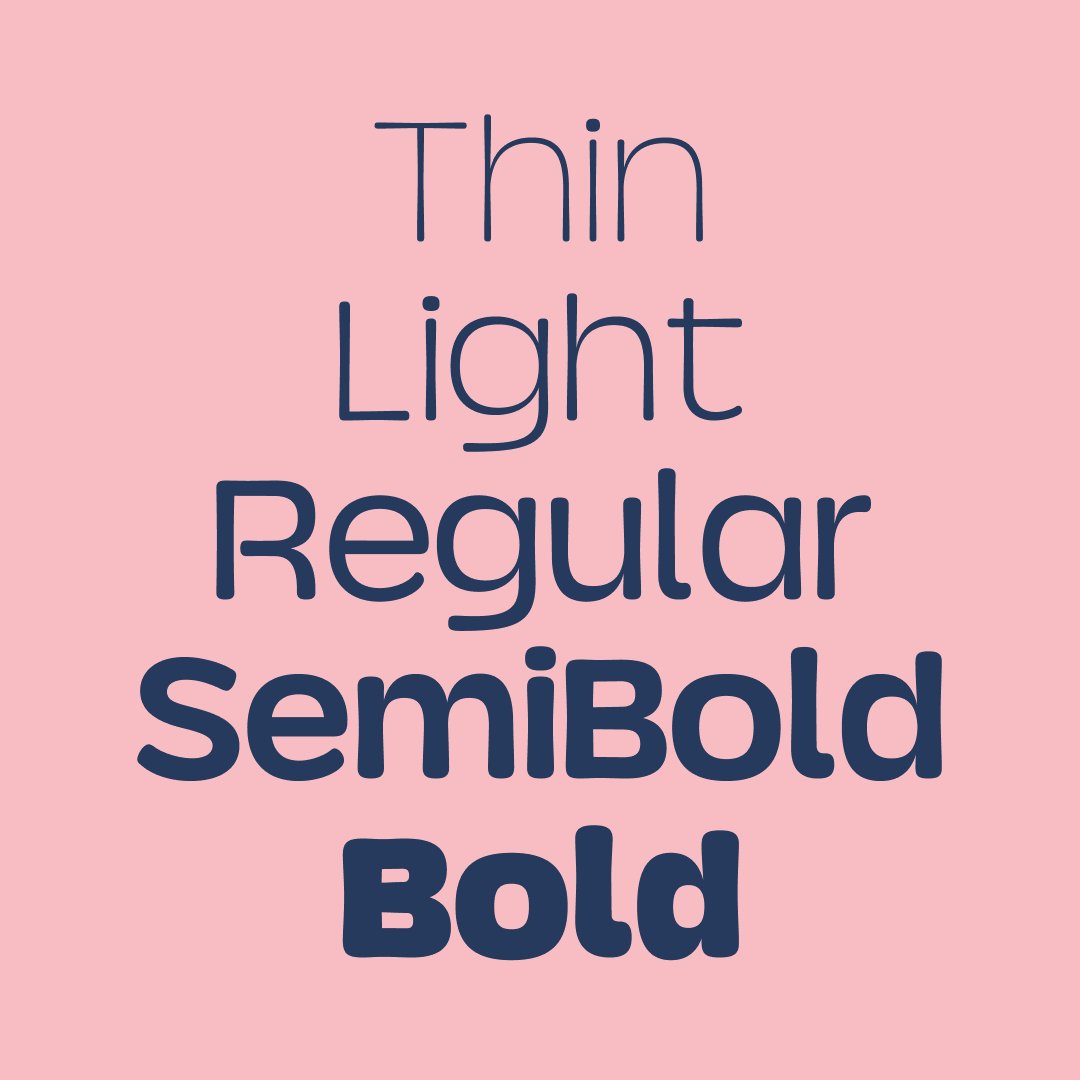
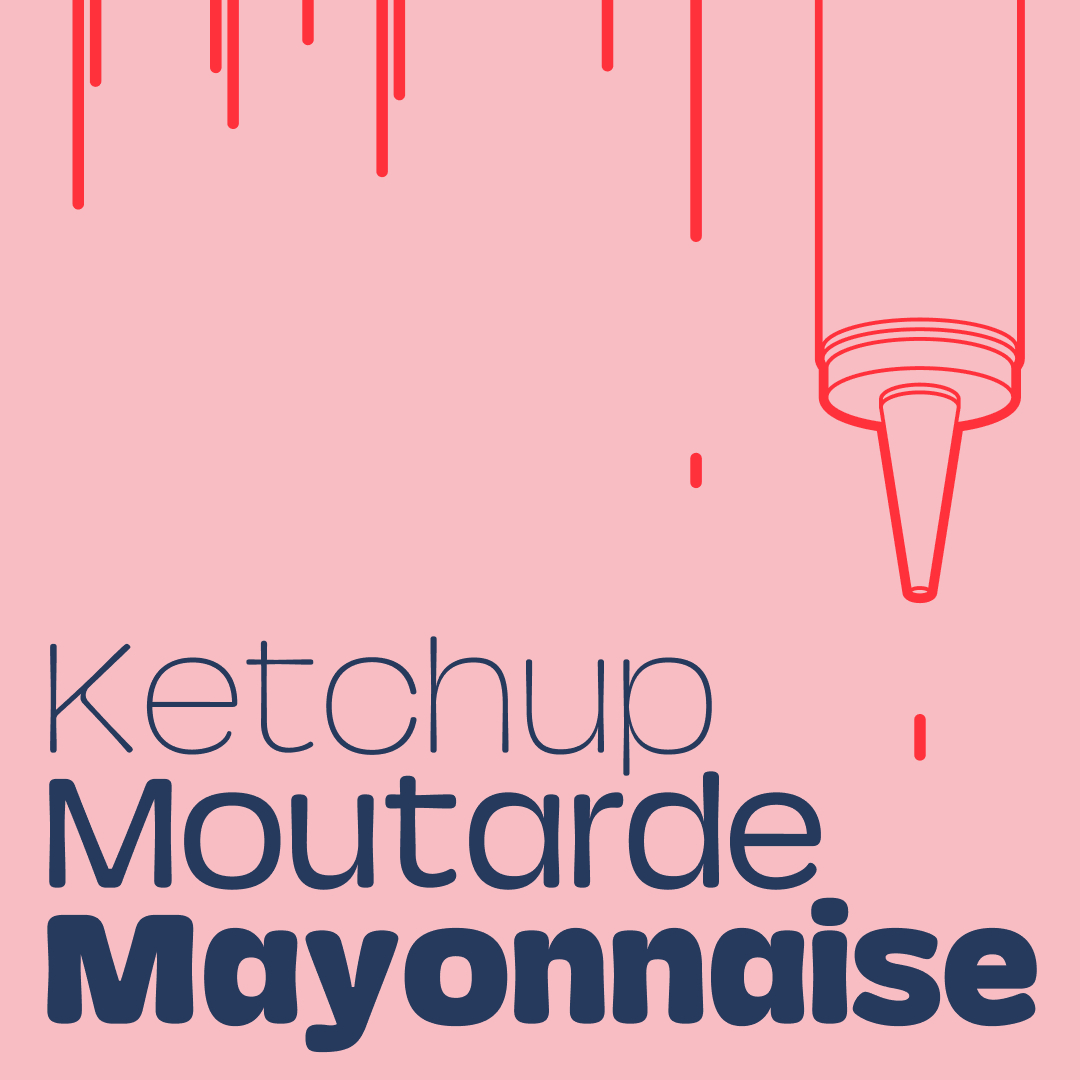
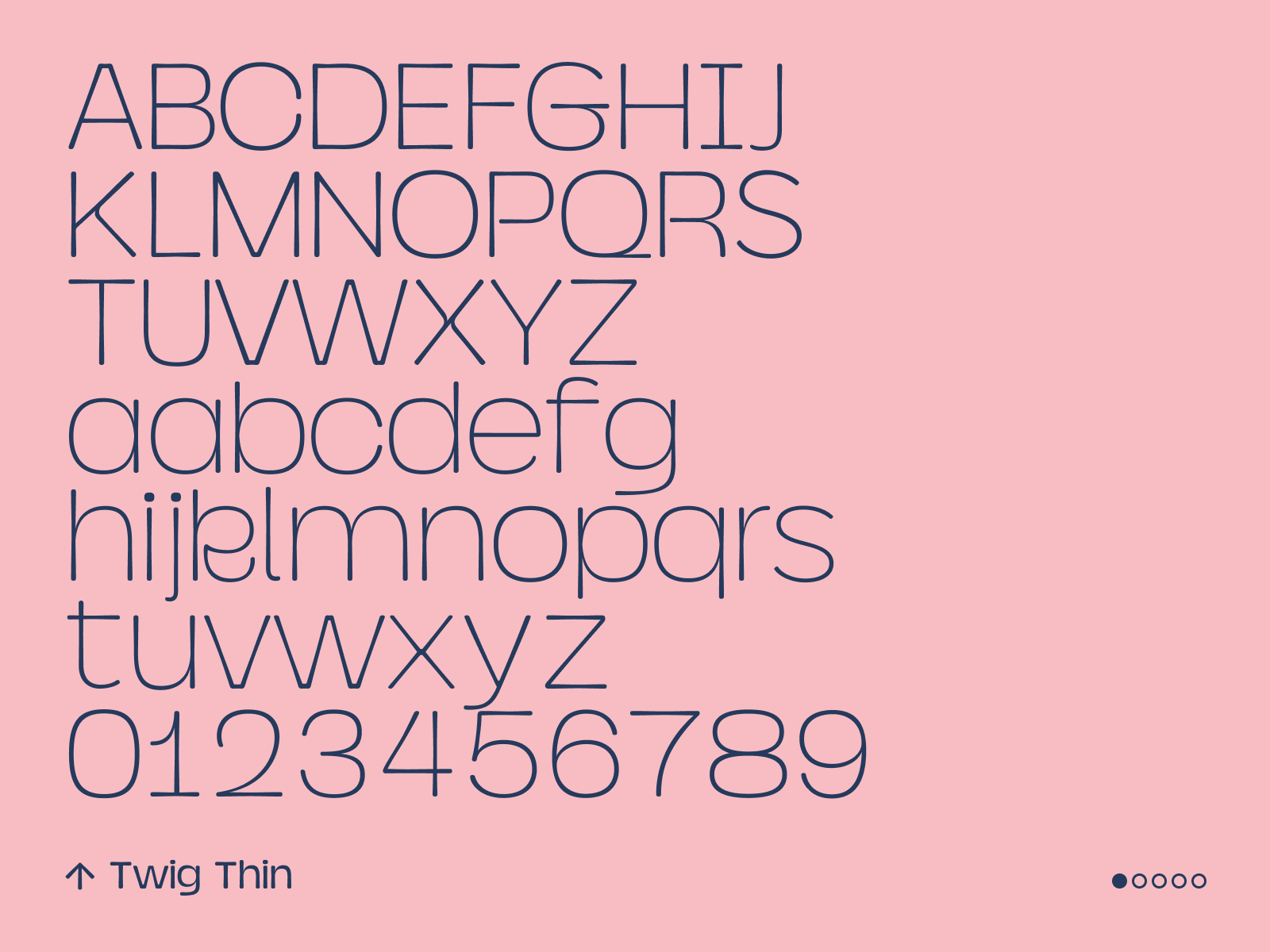
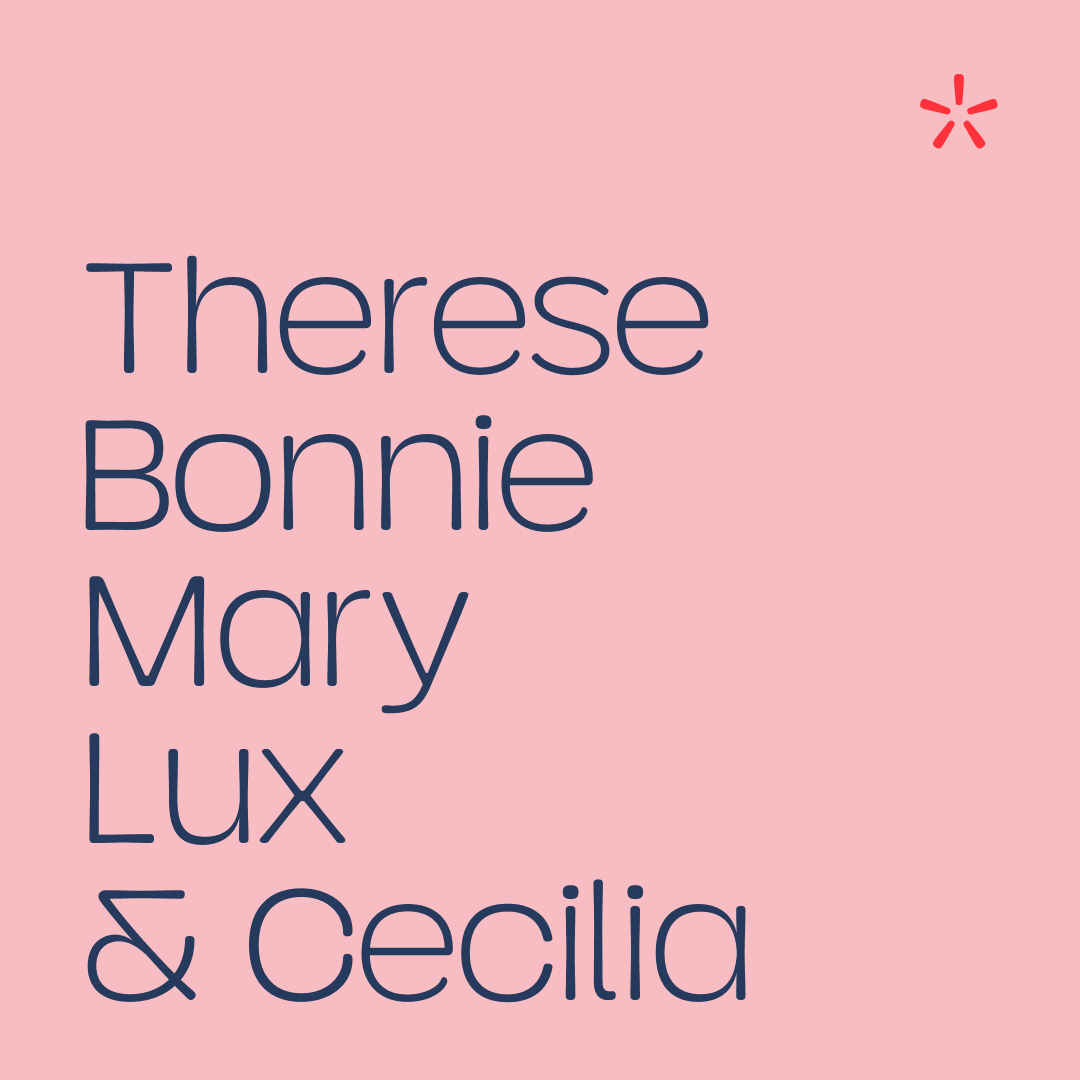
Marmite Defontes in a Book
It was a project on Kickstarter, but it failed to get founded… Then Elliot secured a publisher, the project was resurrected. The project flight under the radar this summer and… And now it’s official and you can pre-order it. Yee-haw!
Tip: If you decide to pre-order the book, you will receive immediate access to the essay from John Boardley on the first type specimens. That’s not all. The first 250 participants will receive a sticker sheet and a signed bookplate from Elliot.
Being published as a foundry was part of my goal for 2025. At least I can check this one off the list. It is a super satisfying feeling and another motivation to have ones work printed on paper. Can’t wait to have it in my mailbox and to discover the work of the other selected type foundries.
1️⃣ Yummy Hamburgefonstiv
A type specimen that’s using the Hamburger as a metaphor? Hold my beer! Contrast Foundry (CoFo for short) cooked us a super publication with The Office of Ordinary Things studio to showcase how to pair fonts from their catalogue. So good!
2️⃣ An Optimist's Guide to the Planet
In this 12-episode series, actor Nikolaj Coster-Waldau meets people across the globe that run projects with sustainability at the core. You might have seen him in Game of Thrones, and this time, no fancy costumes or battlefields. Simple and inspiring conversations about what we can do to move towards a more desirable and brighter future. It reminded me of the documentary “The Need to Grow”. Happy watching.
3️⃣ Welcome Double Type!
The French studio Brand Brothers launched their type foundry. It is called Double Type and it regroups font creations that are born from the studio’s branding projects. Creative, display, unexpected, funky and charming fonts. Everything I love.
1️⃣ Post Malone covers “Them Bones (Live on the Stern Show)” — 2023
This is a cover from Alice in Chains. The acoustic setup and the presence of the choir on top of the raspy voice of Post Malone make it bright and heavy at the same time. The original song is good, but this cover tops it easily.
2️⃣ KARDI(카디) - Not But Disco — 2025
Confession: I clicked on this video because of the striking yellow thumbnail. The mood of this track is super catchy and pumped with energy. The presence of the traditional Geomungo (Korean zither/harp) brings a nice twist to the band’s sound. K-pop Rock for the win!
3️⃣ Arctic Monkeys “Sculptures of Anything Goes” — 2022
It’s been a while since I found some excitement in one of their albums. But here, there is a gem in the middle of the tracklist. The rhythm is raw and haunting, the melody is eerie with nostalgic synth layers. And Alex Turner delivers an impeccable distribution of sharp and enigmatic lyrics.
4️⃣ La Fine Équipe (20syl & Kafutchino) “Kouign Amann” — 2014
Easy to listen to. Obvious to go back to. And a delicious dessert from Brittany. Here are the main ingredients: 32% flour, 26% salted butter, 26% sugar, 14.7% water, 1.3% fresh yeast, a pinch of salt and funky deep beats from 20syl. Served warm.